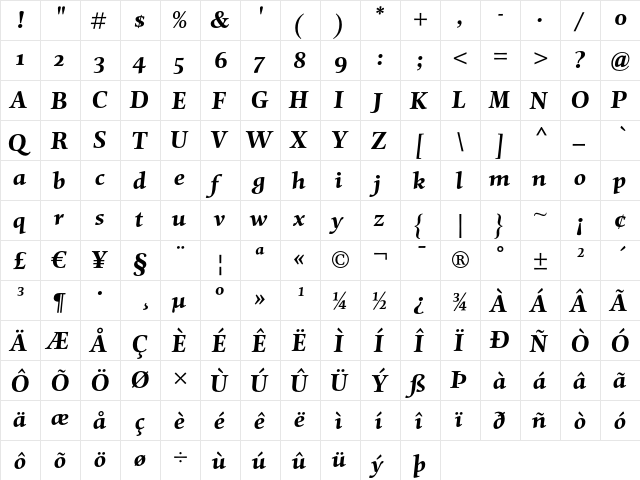
Mentor Bold Italic OsF Font Preview
Design Context for Mentor Typeface
Mentor takes a measured approach to typography — its balanced proportions and neutral character make it a reliable workhorse for both digital and print work. The dynamic lean of this cut emphasises speed and emphasis in any layout. Its bold stroke weight gives it real presence on the page.
Pro Tip: Try Mentor for annotation and caption copy alongside an upright companion — the contrast in angle creates a dynamic but ordered typographic system.